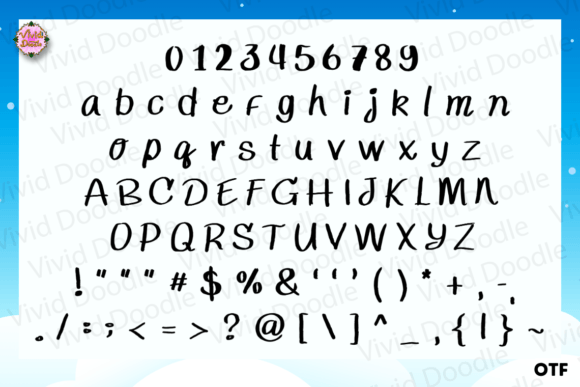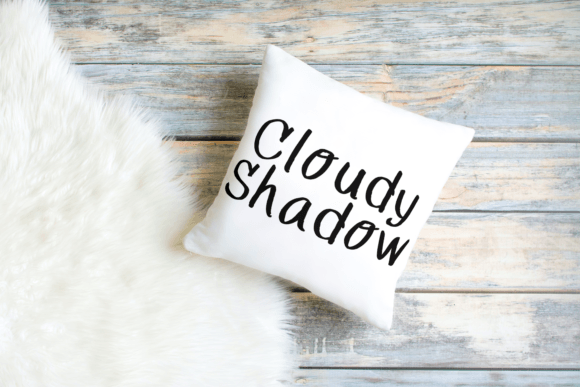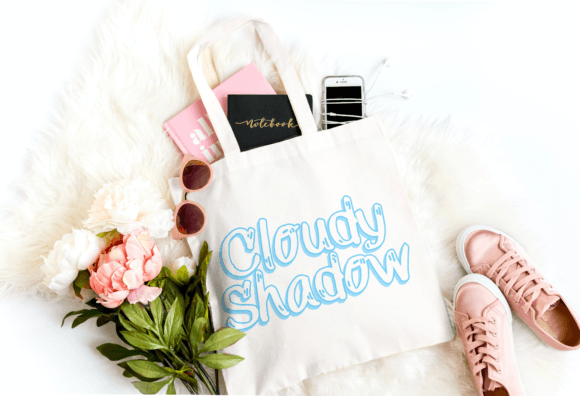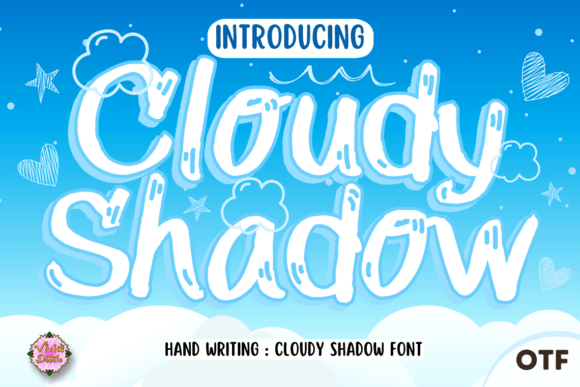
Introducing Cloudy Shadow Font: The Ultimate Holiday Companion for Designers and Crafters
Are you ready to infuse your designs and crafts with the magic of the holiday season? Look no further! We’re thrilled to introduce the Cloudy Shadow Font, a unique, hand-lettered typeface that embodies the warmth and joy of the festive season. This enchanting font is specifically crafted to bring a touch of merriment to your creations, making it the perfect addition to your holiday projects.
What is Cloudy Shadow Font?
Cloudy Shadow Font is a thoughtfully designed, hand-lettered typeface that radiates festive cheer. Its unique and adaptable design makes it an excellent choice for a wide range of projects, from holiday-themed designs to everyday crafts. The font’s distinctive style is characterized by its whimsical, cursive feel, which adds a touch of warmth and personality to any design.
Key Features of Cloudy Shadow Font
• Unique Hand-Lettered Design: Each letter is carefully crafted to create a distinctive and charming look that sets it apart from other fonts.
• Festive yet Versatile: While perfect for holiday-themed designs, Cloudy Shadow Font’s adaptability makes it suitable for various projects, from greeting cards to branding materials.
• Enchanting and Exclusive: As a specially created font for the holiday season, Cloudy Shadow Font is an exclusive addition to your font collection, guaranteed to make your designs stand out.
Why Choose Cloudy Shadow Font?
With Cloudy Shadow Font, you can add a personal touch to your designs and crafts, elevating them from ordinary to extraordinary. Here are just a few reasons why designers and crafters love Cloudy Shadow Font:
• Save Time: With a vast range of characters and symbols, Cloudy Shadow Font saves you time and effort, allowing you to focus on the creative aspects of your project.
• Enhance Your Brand: Use Cloudy Shadow Font to create unique and memorable branding materials, such as logos, business cards, and social media graphics.
• Perfect for Holiday Projects: From Christmas cards to Hanukkah greetings, Cloudy Shadow Font is the perfect companion for your holiday designs and crafts.
Tips and Tricks for Working with Cloudy Shadow Font
To get the most out of Cloudy Shadow Font, here are some tips and tricks to keep in mind:
• Experiment with Colors: Try pairing Cloudy Shadow Font with complementary colors to create visually striking designs.
• Mix and Match Fonts: Combine Cloudy Shadow Font with other fonts to create unique and eye-catching typography.
• Pay Attention to Kerning: Adjust the kerning to ensure that your text looks balanced and visually appealing.
Cloudy Shadow Font is the perfect addition to your holiday design and crafting arsenal. With its unique, hand-lettered design and versatile style, this enchanting font is sure to bring a touch of festive cheer to your creations. Whether you’re a designer, crafter, or DIY enthusiast, Cloudy Shadow Font is an excellent choice for anyone looking to add a personal touch to their projects. So why wait? Download Cloudy Shadow Font today and experience the merriment of the season!